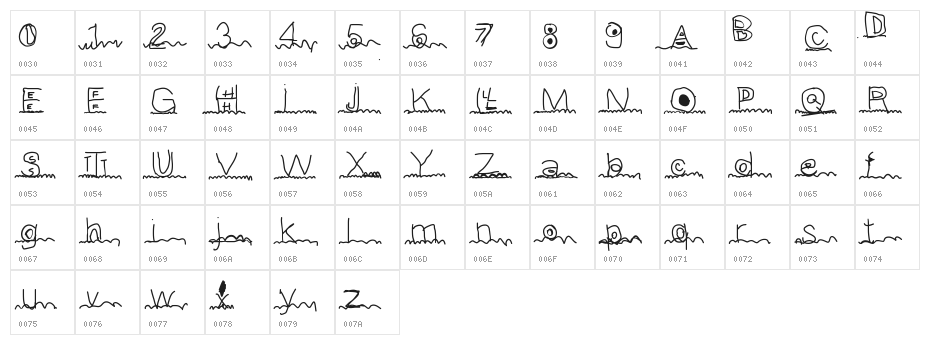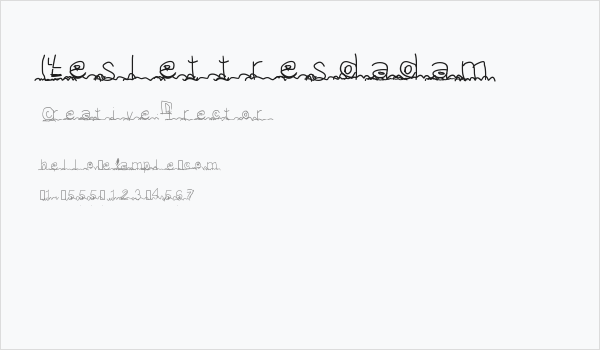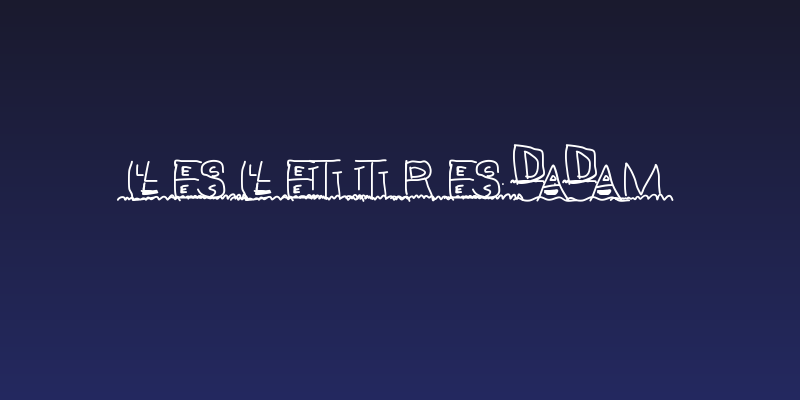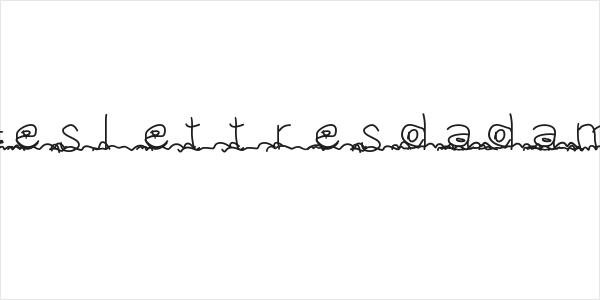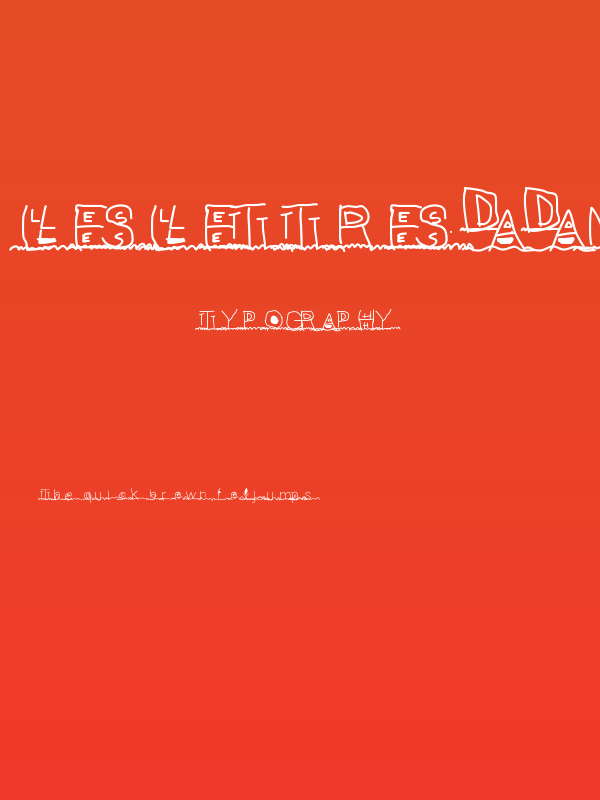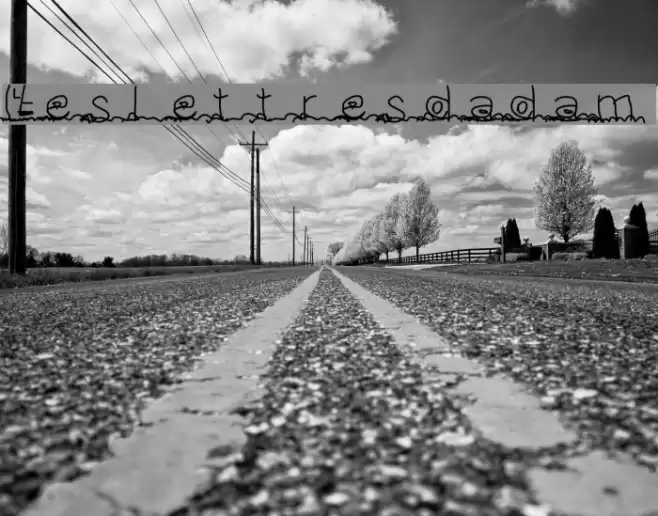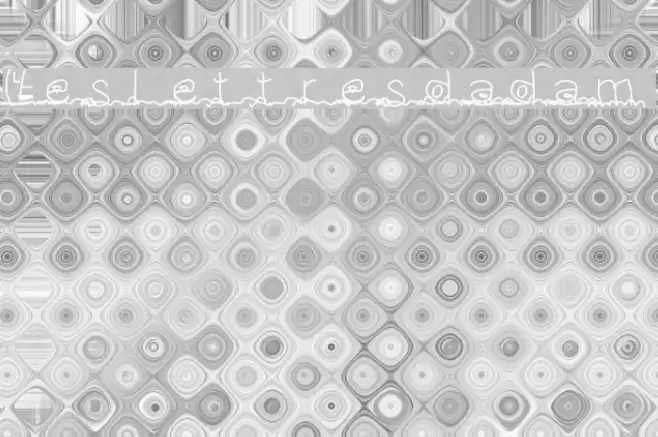
Leslettresdadam Font
This font features a playful and whimsical design, characterized by its uneven, hand-drawn appearance. The letters have a casual, almost doodle-like quality, with varying line thicknesses and quirky, irregular shapes. The uppercase and lowercase letters maintain a consistent style, with a sense of spontaneity and creativity. Numbers and special characters follow the same playful theme, adding to the font's unique personality. This font is ideal for projects that require a fun and informal touch, such as children's books, playful branding, or creative invitations.
| Overall Style | Whimsical |
| Proposed Projects | Children's books, playful branding, creative invitations, casual posters. |
| Author | Fonts by Pablo Impallari |